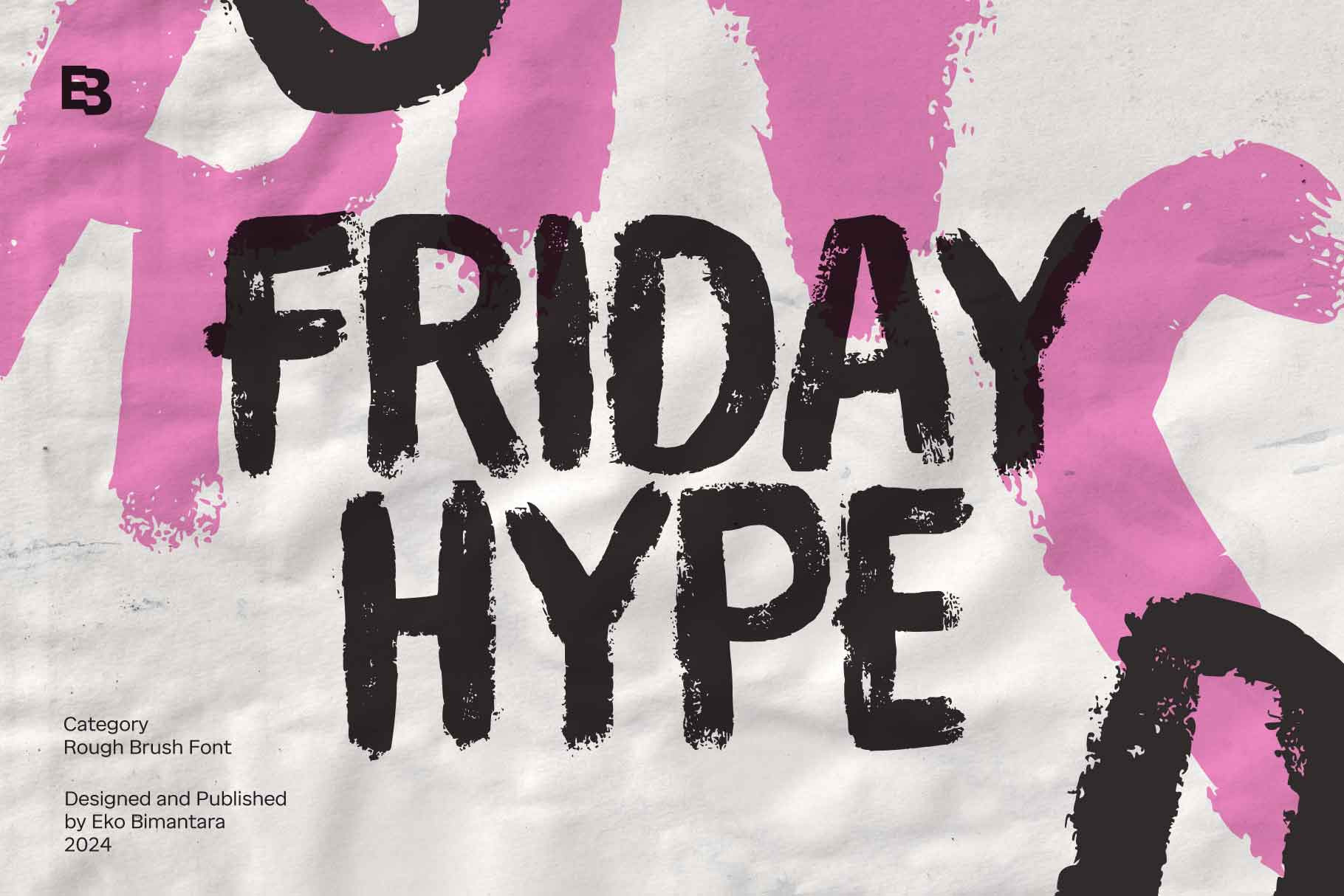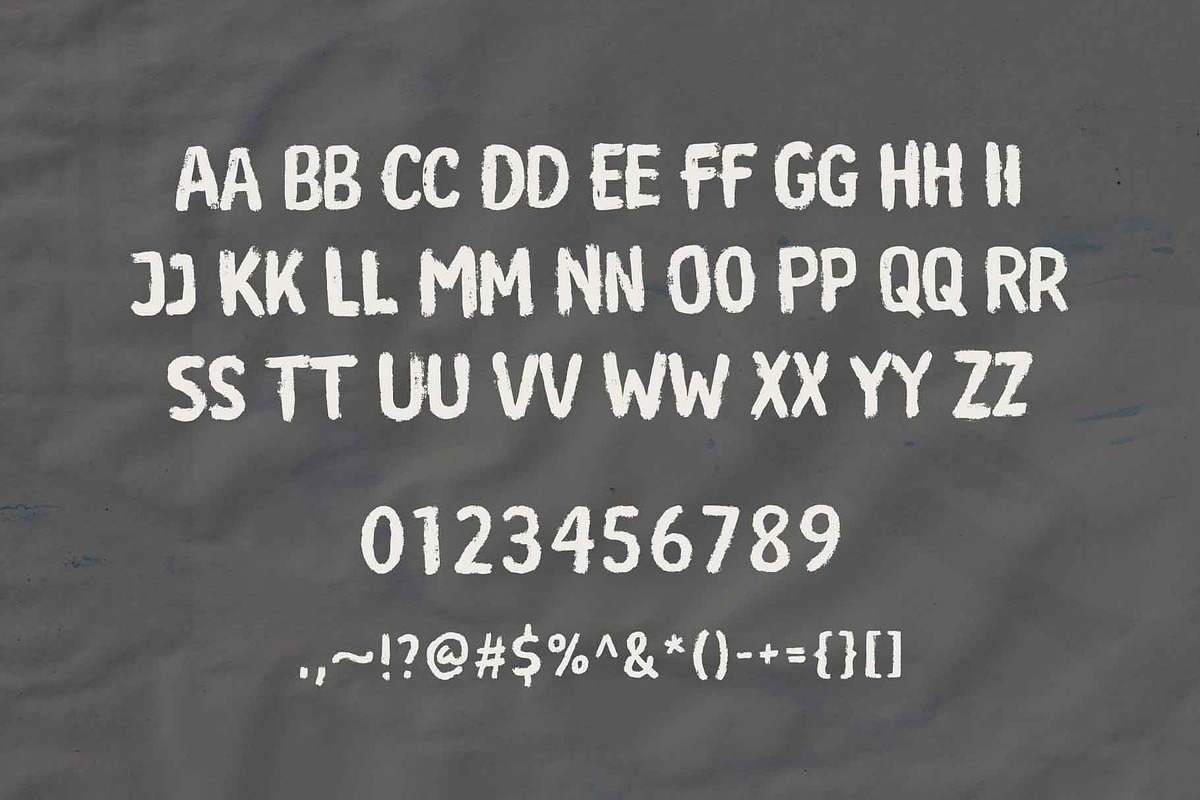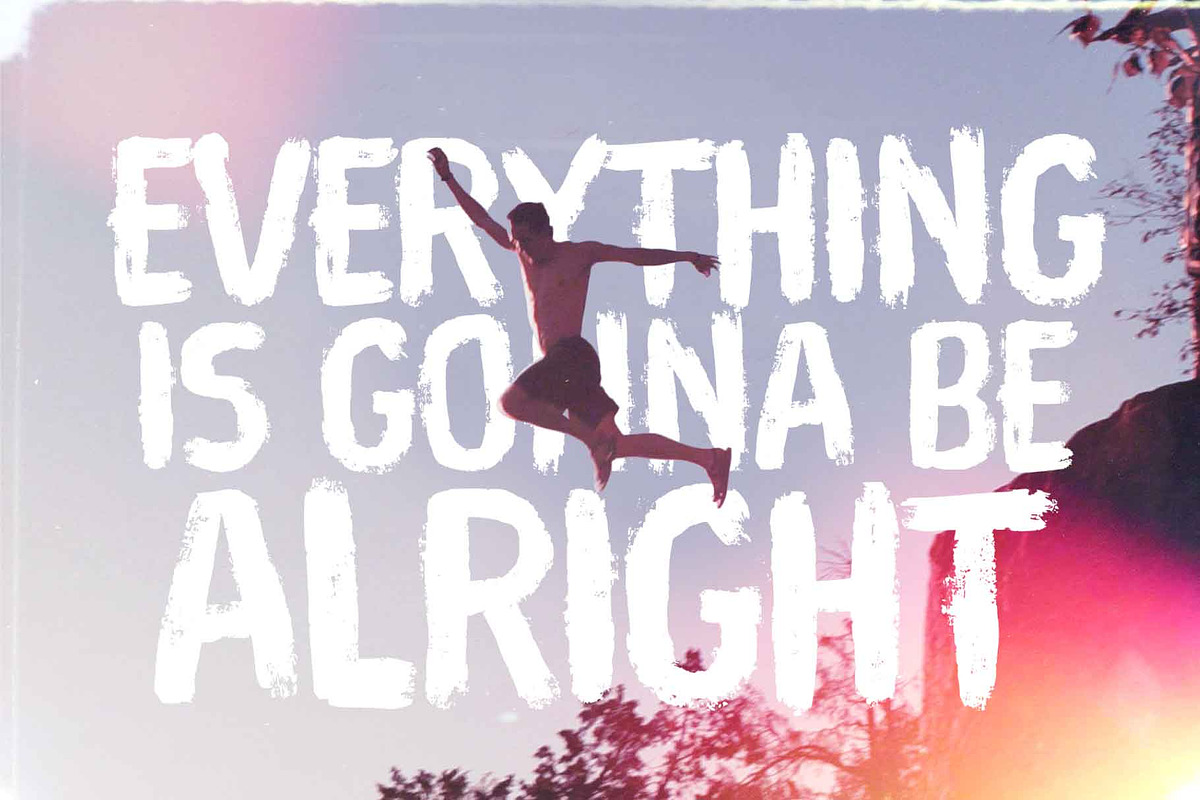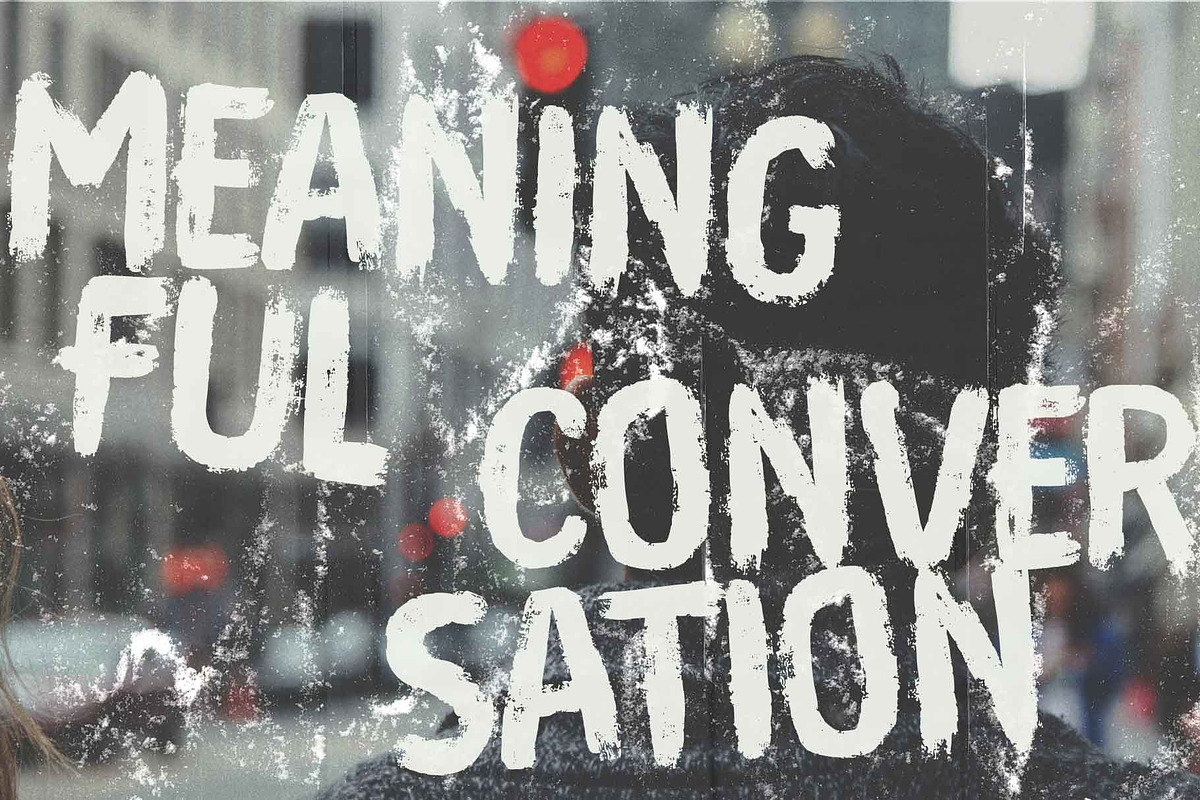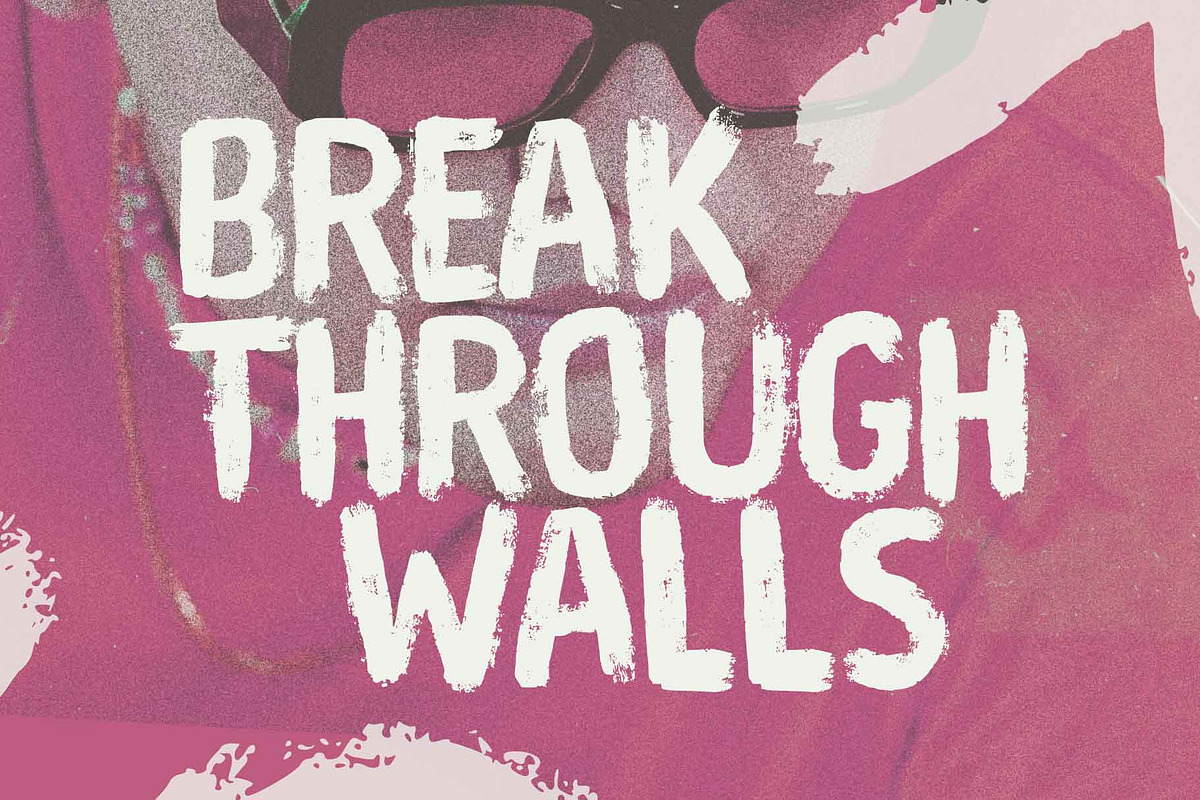
Friday Hype; Rough Brush Font
Friday Hype is a bold, all-caps display brush font with realistic, expressive brush strokes. Its rough and raw style makes it perfect for branding, product titles, posters, and striking headers. Designed for large-size displays, Friday Hype brings a bold energy to various design applications including websites, brand identities, product packaging, and broad creative projects, giving your designs a dynamic, eye-catching presence.